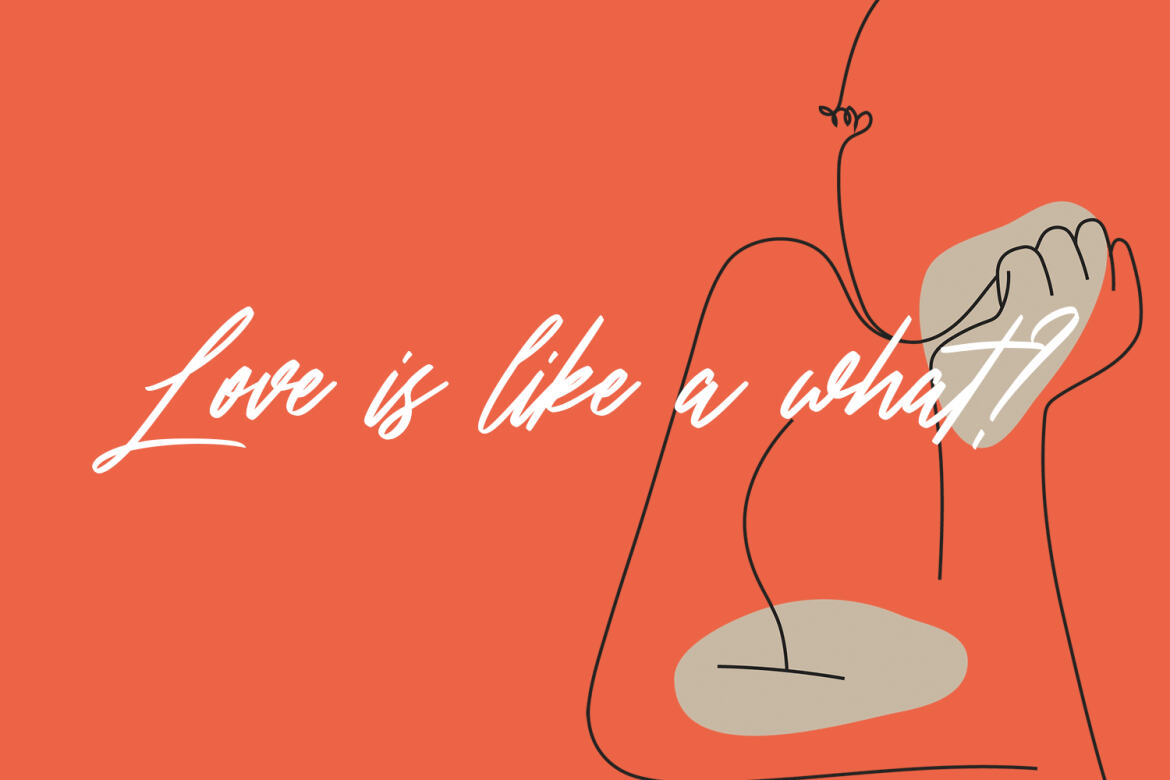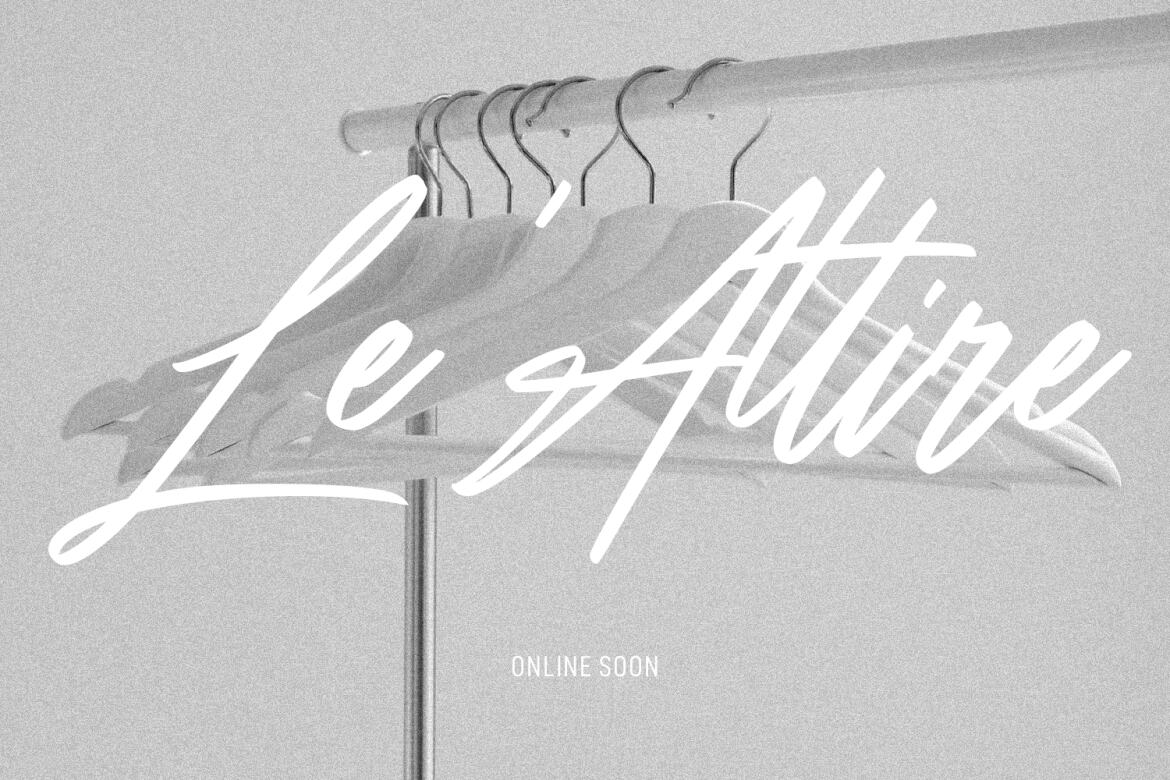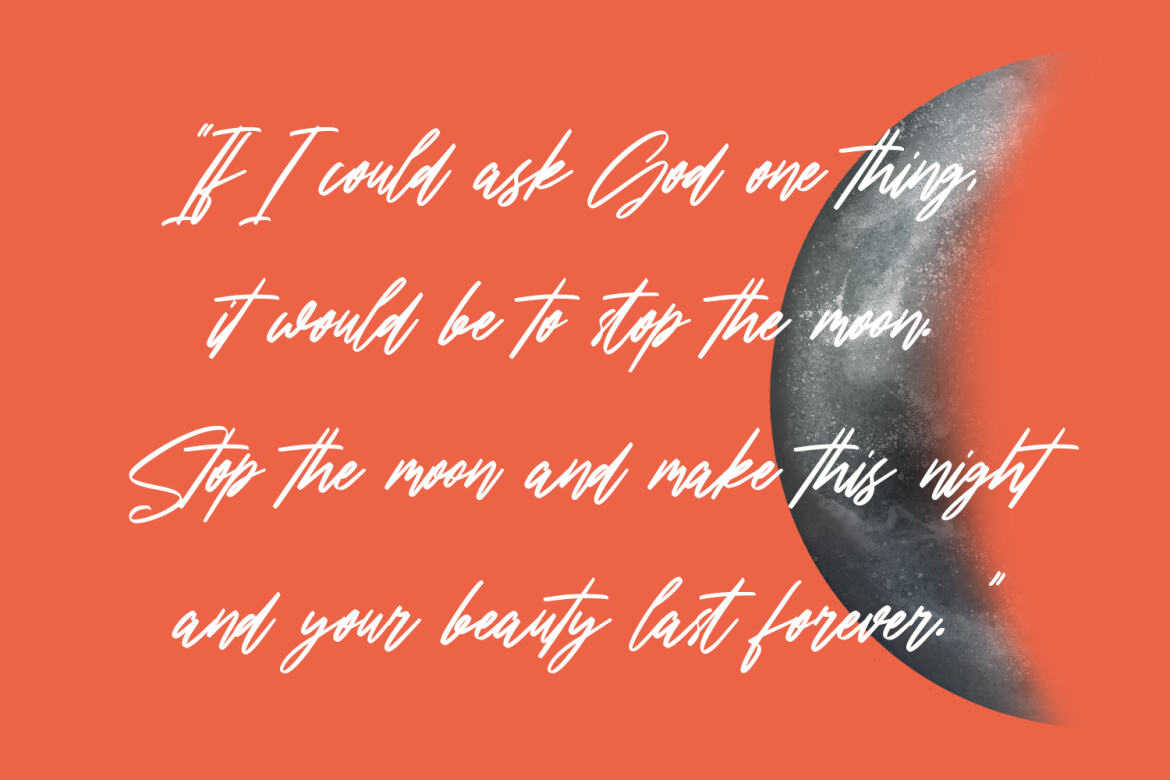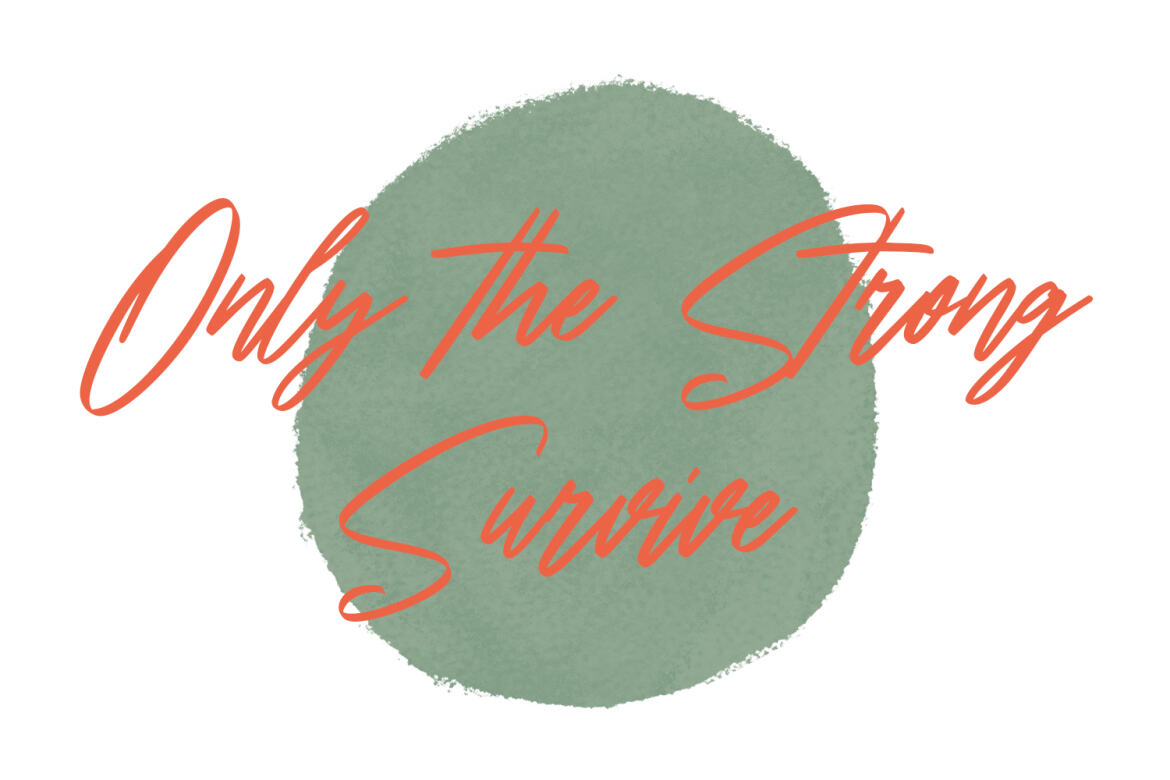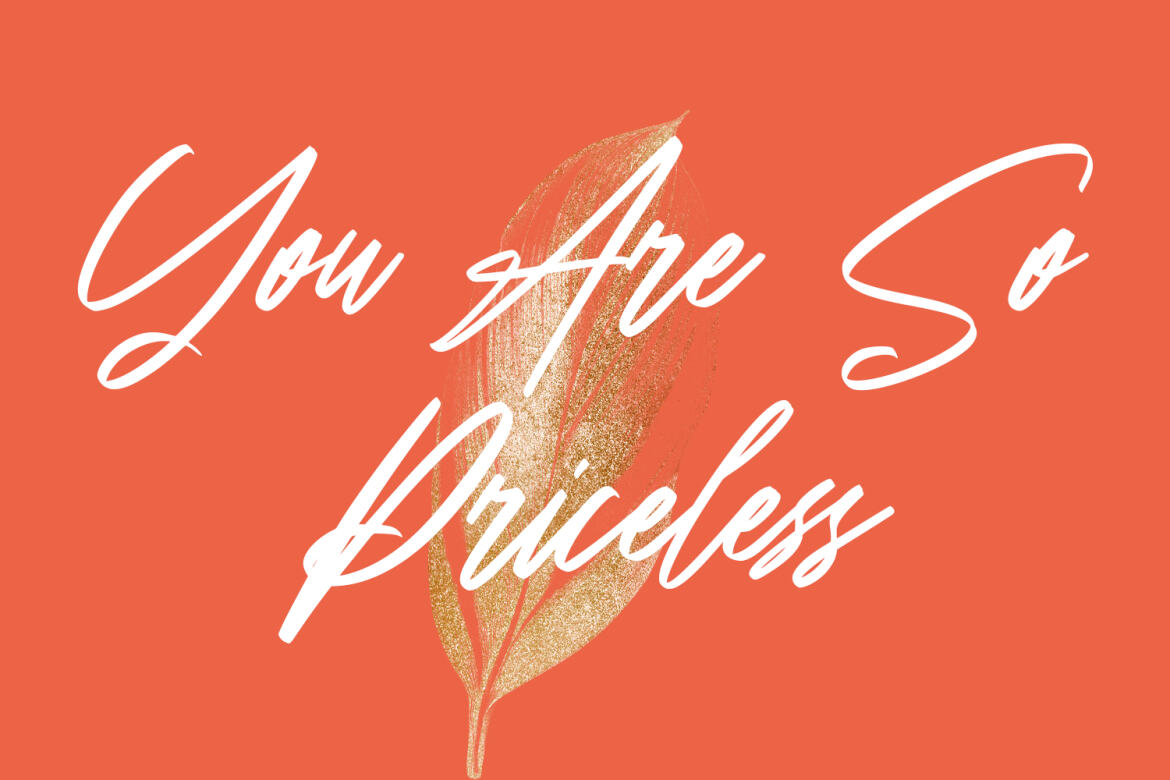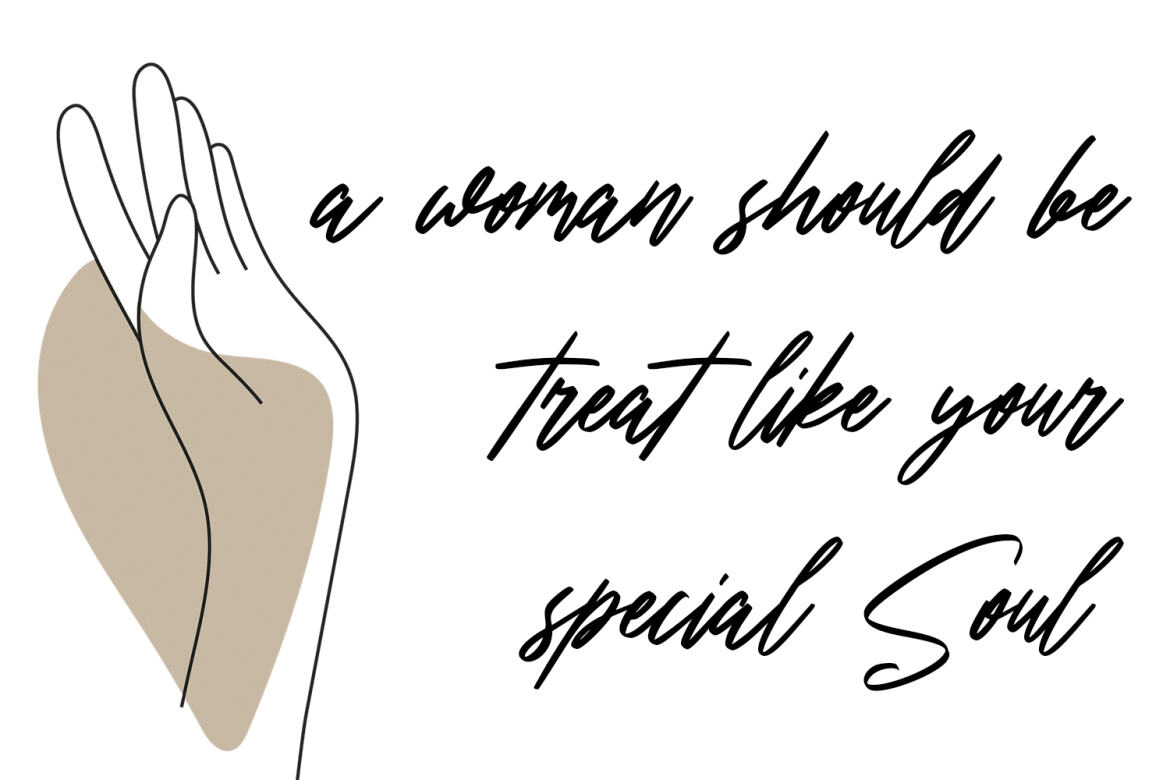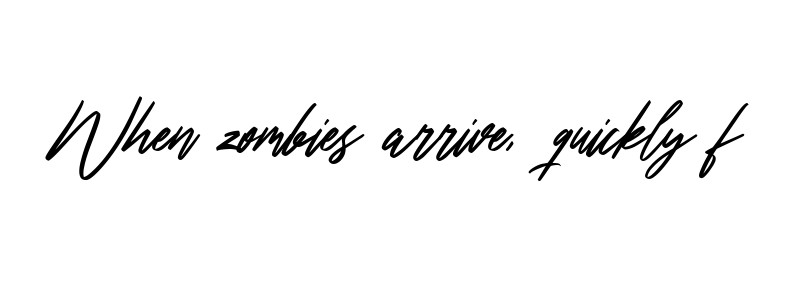
Testimoney Signature FREE Font
Testimoney
Testimoney is a Fancy Signature script font. With Regular Contrast stroke, slanted and fun character with a bit of ligatures. To give you an extra creative work. Testimoney font support multilingual more than 100+ language. This font is good for logo design, Social media, Movie Titles, Books Titles, a short text even a long text letter and good for your secondary text font with sans or serif. Make a stunning work with Testimoney font.